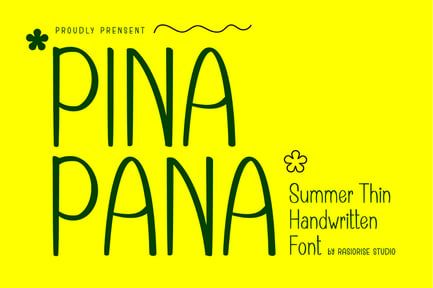
PinaPana – Summer Thin Handwritten Font
Introducing PinaPana the Summer Thin Handwritten Font, a delightful typeface that captures the essence of Simple Monoline and creativity. With its elegant, flowing lines and a light, airy feel, this font is perfect for adding a personal touch to your projects. Despite its thin design, the font maintains excellent legibility, ensuring your message is clear. Whether you’re designing invitations, greeting cards, or social media graphics,